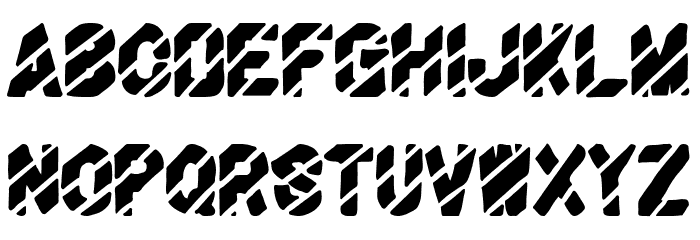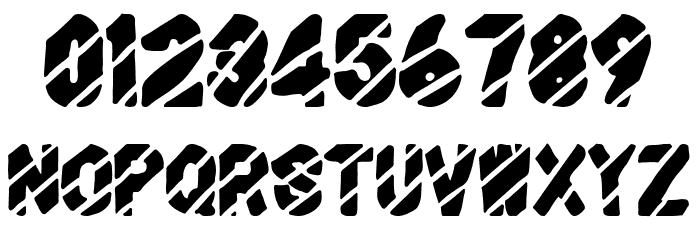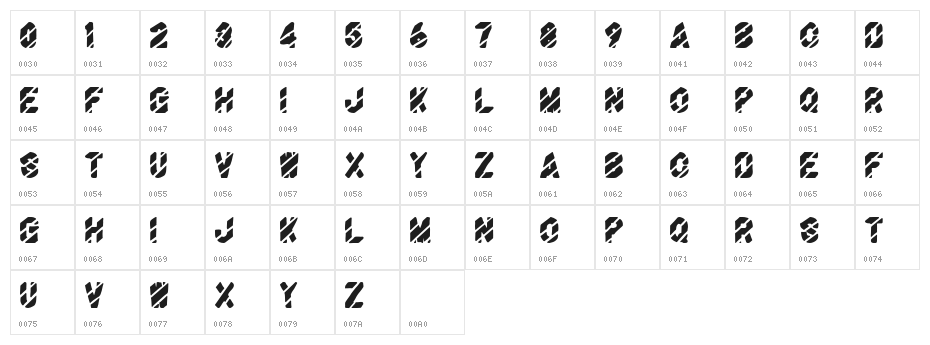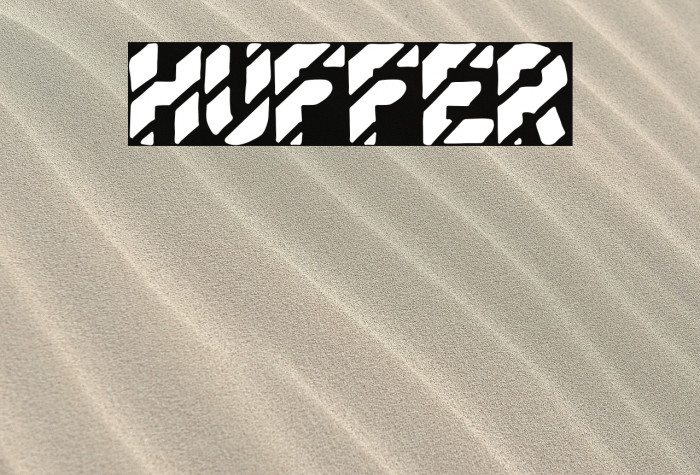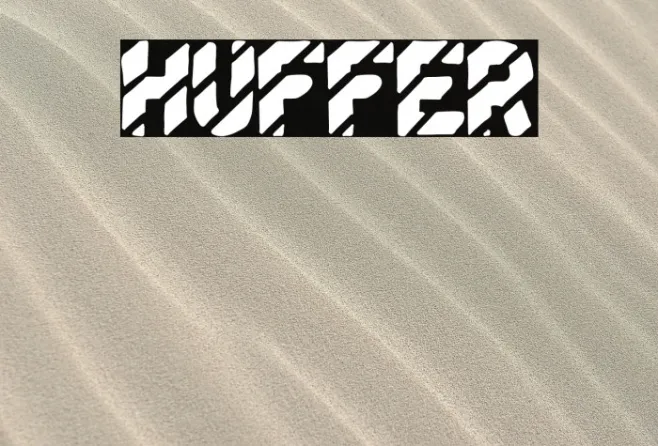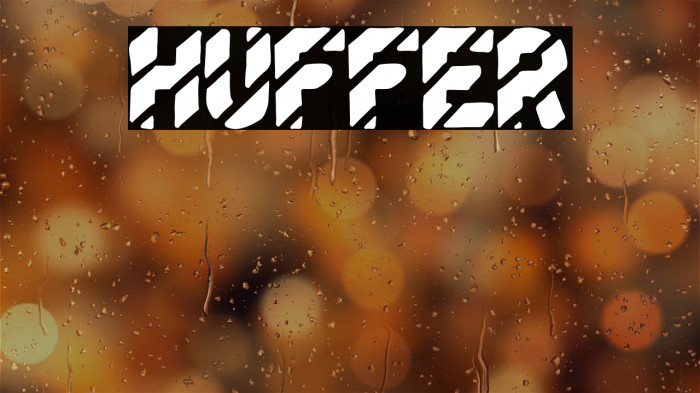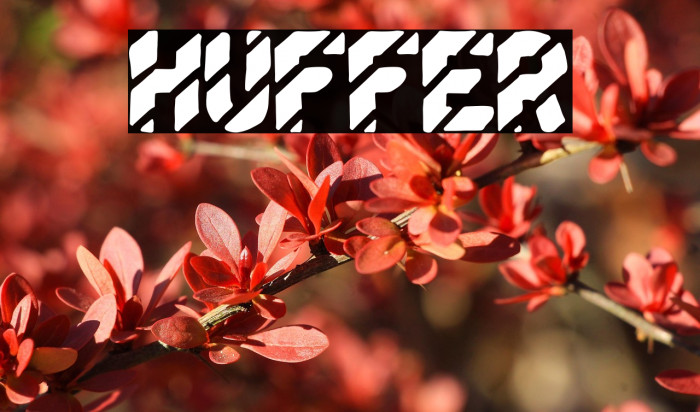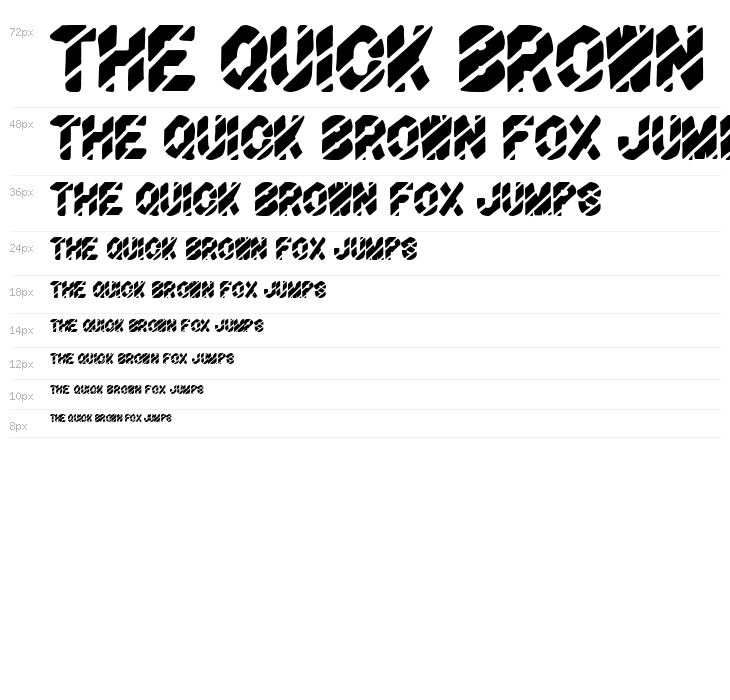
HUFFER Font
This font features a bold, geometric design with a distinct stencil-like appearance. Each character is constructed with thick, angular strokes that are interrupted by diagonal cuts, creating a dynamic and fragmented look. The uppercase letters are particularly striking, with their solid, blocky forms that convey strength and modernity. The numbers and special characters maintain this bold style, ensuring consistency across all elements. The font's unique style makes it ideal for projects that require a strong visual impact.
A bold, geometric stencil font with angular, fragmented strokes.
- Proposed Projects: Ideal for branding, posters, and headlines that require a modern, impactful look.